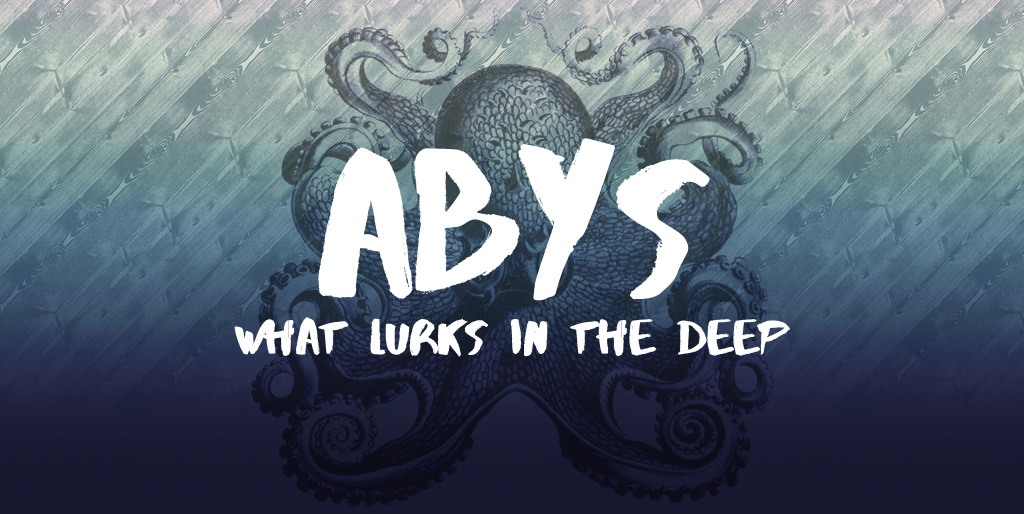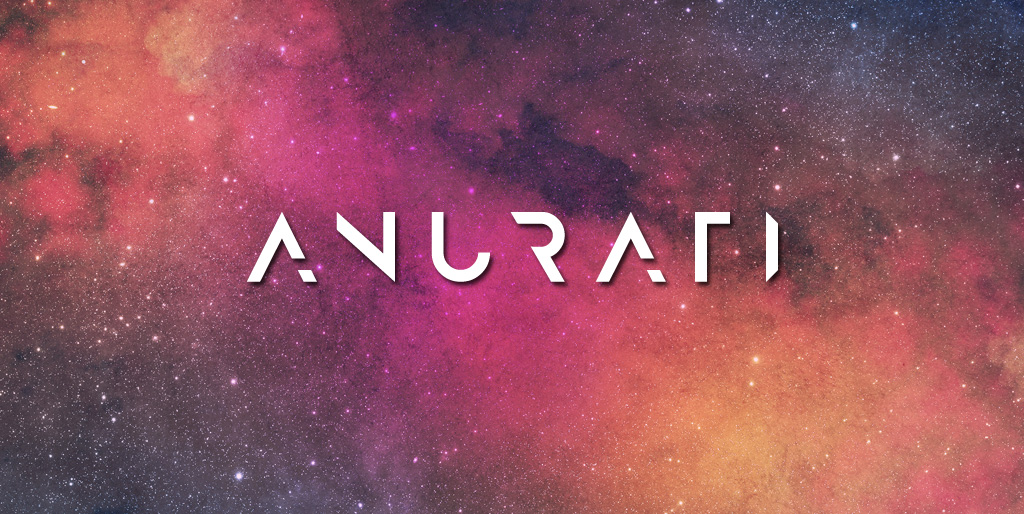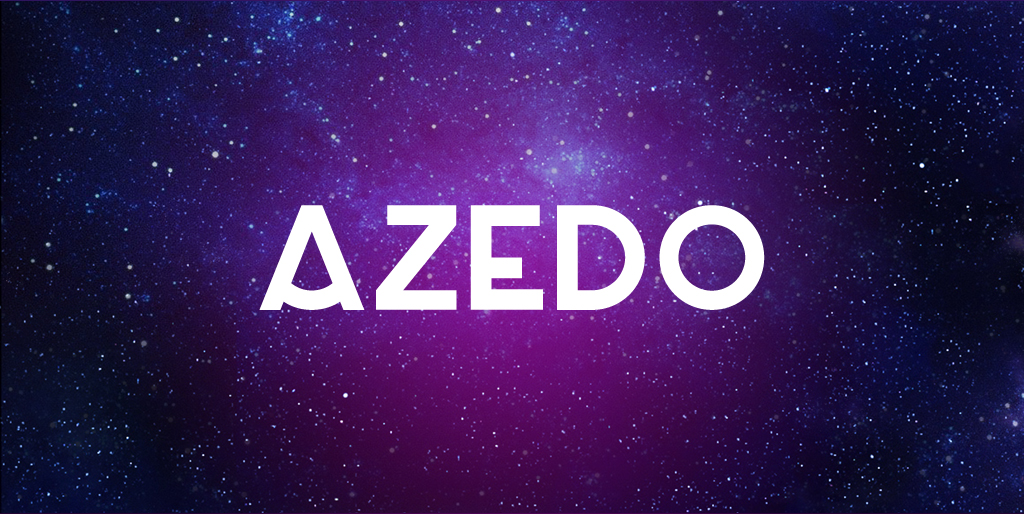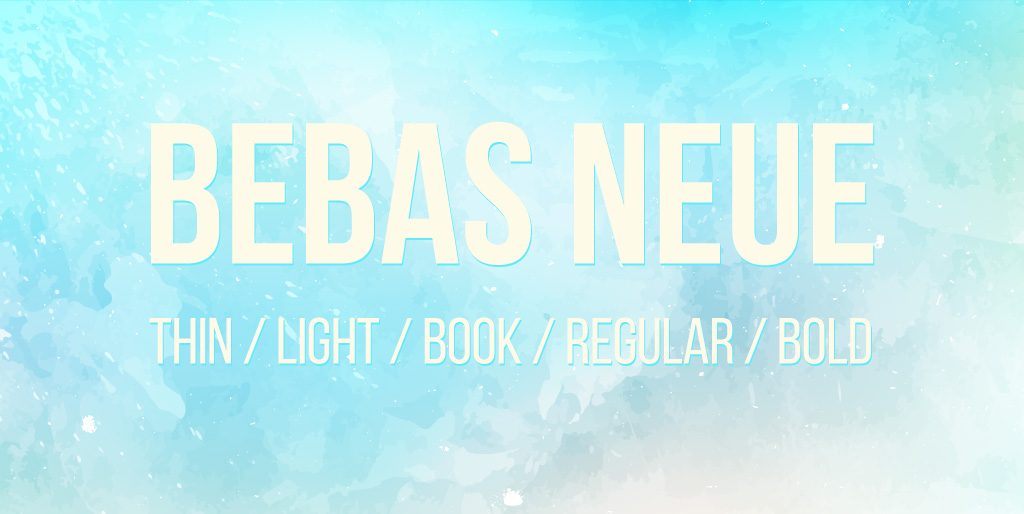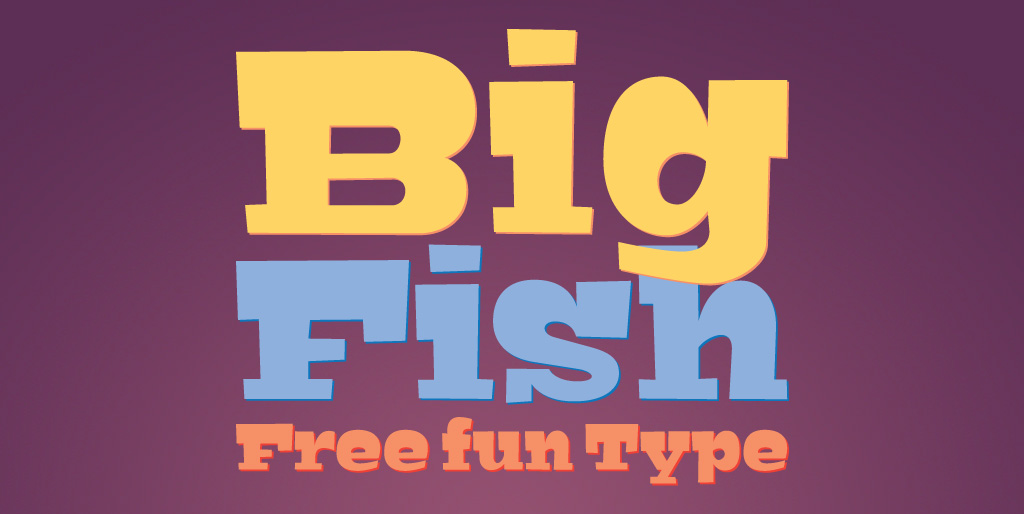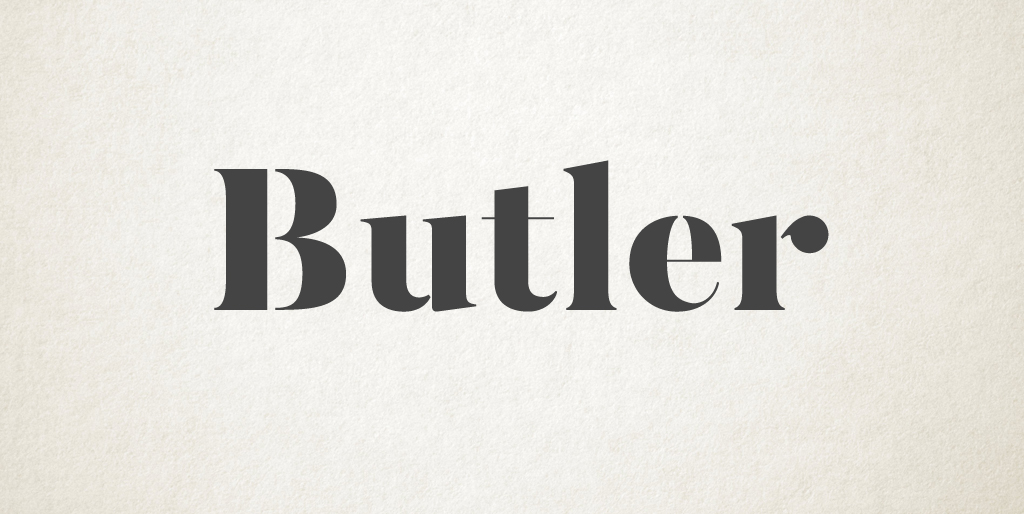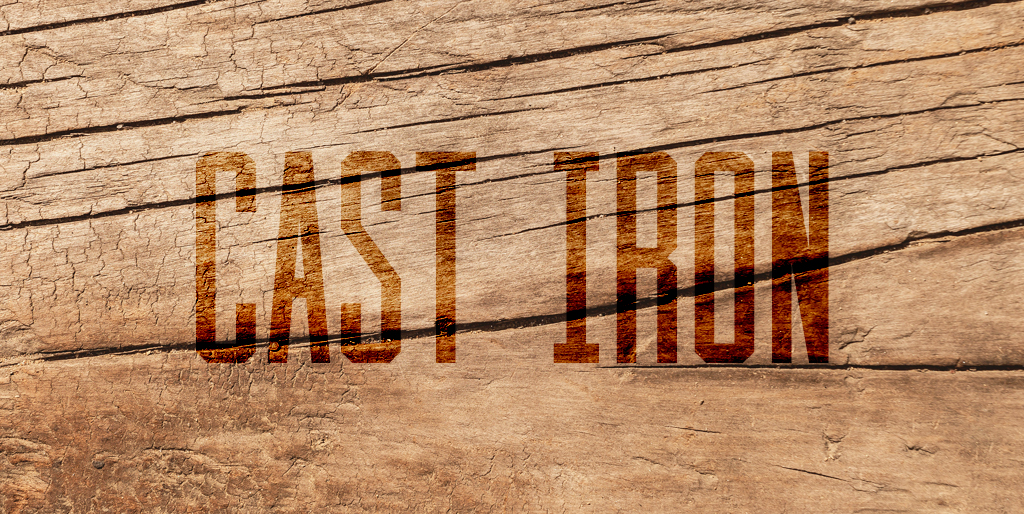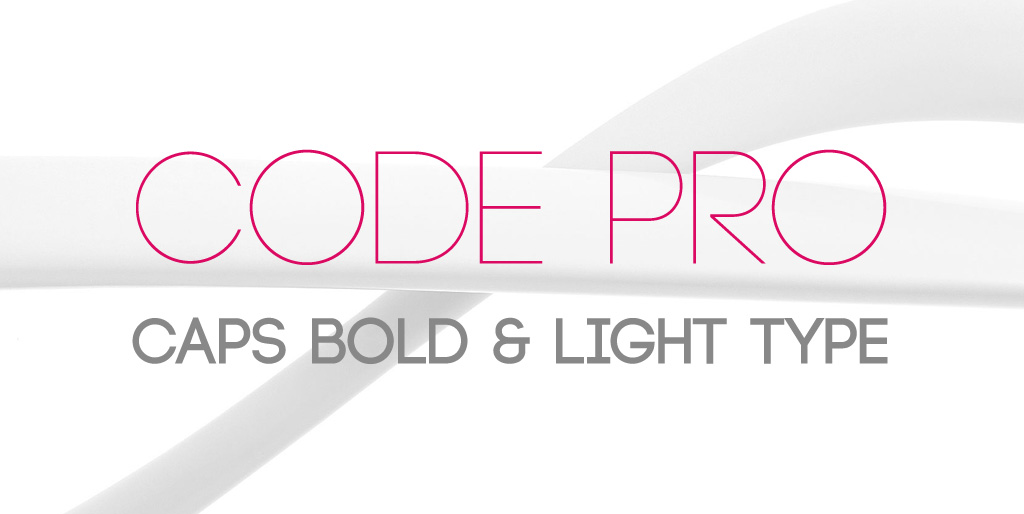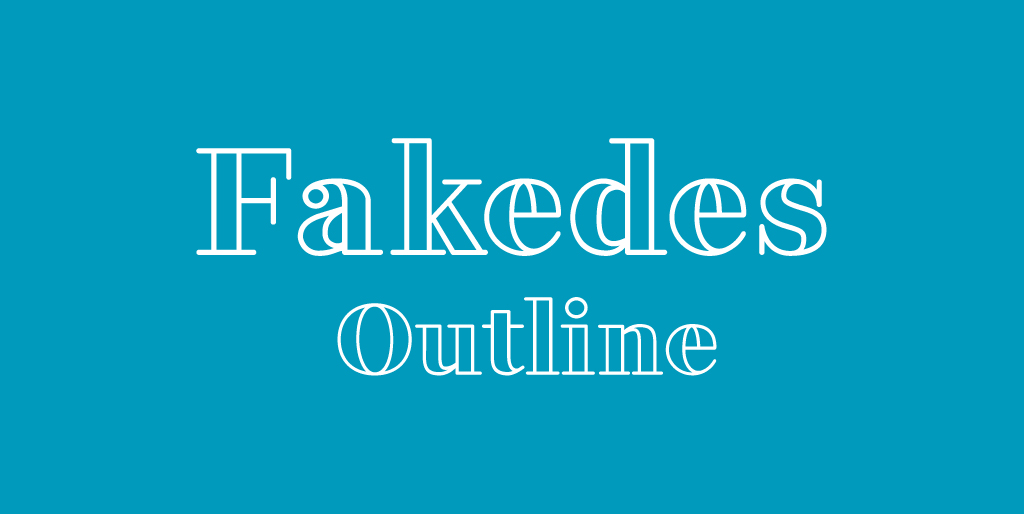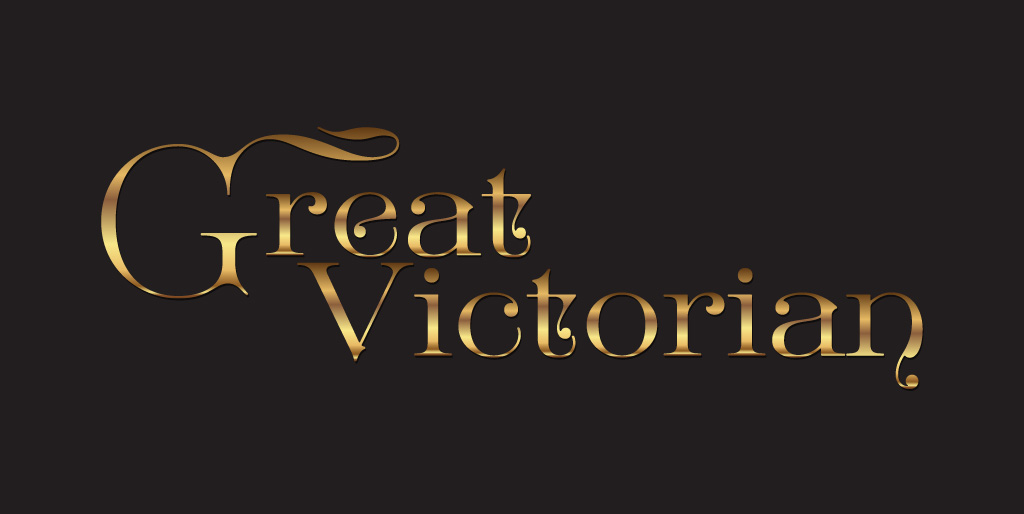
45 Free fonts for graphic designers
This is another round-up of some of our current favourite free fonts. We present you with a nice and varied selection of free fonts. Including scripts, serifs, and a range of ligatures. These fonts will give you greater flexibility in your mockups, and add to your toolbox of typography. If you use them in a commercial project and it is approved by your clients please consider donating to the designers or show them support in some other way.
Free fonts - Abys
Free fonts - Anurati
Free fonts - Azedo
Free fonts - Bajern
Free fonts - Bebas Neue
Free fonts - Big Fish
Free fonts - Big John / Slim Joe
Free fonts - Butler
Free fonts - Canter
Free fonts - Cast Iron
Free fonts - Choplin
Free fonts - Code Pro
Free fonts - Cosmonaut
Free fonts - Disclaimer
Free fonts - Fabiolo
Free fonts - Fakedes Putline
Free fonts - Great Victorian
Free fonts - Handletter
Free fonts - Jura
Free fonts - Knile
Free fonts - Locke
Free fonts - London
Free fonts - Matchbook
Free fonts - Medio
Free fonts - Penna
Free fonts - Perfograma
Free fonts - Sant Joan Despí
Free fonts - Sensei
Free fonts - Shihan
Free fonts - Simple
DOWNLOAD SIMPLE(.ttf) by Giuseppe Stillitano
Free fonts - Simplifica
SIMPLIFICA(.ttf) by KAIWA
Free fonts - Smaq
DOWNLOAD SMAQ(.ttf) by Andreas Leonidou
Free fonts - Something Wild
DOWNLOAD SOMETHING WILD(.otf) by Dmitriy Chirkov
Free fonts - Soria
DOWNLOAD SORIA(.ttf) by Dani
Free fonts - Sprite Graffiti
DOWNLOAD SPRITE GRAFFITI(.otf) by FourPlus Studio
Free fonts - Streamster
DOWNLOAD STREAMSTER(.ttf) by Designrazzi
Free fonts - Unique
DOWNLOAD UNIQUE(.ttf) by Anna Pocius
Free fonts - Yarin
DOWNLOAD YARIN(.otf) by Mario Pandeliev
Free fonts - Zona Pro
DOWNLOAD ZONA PRO(.otf) by Kostas Bartsokas